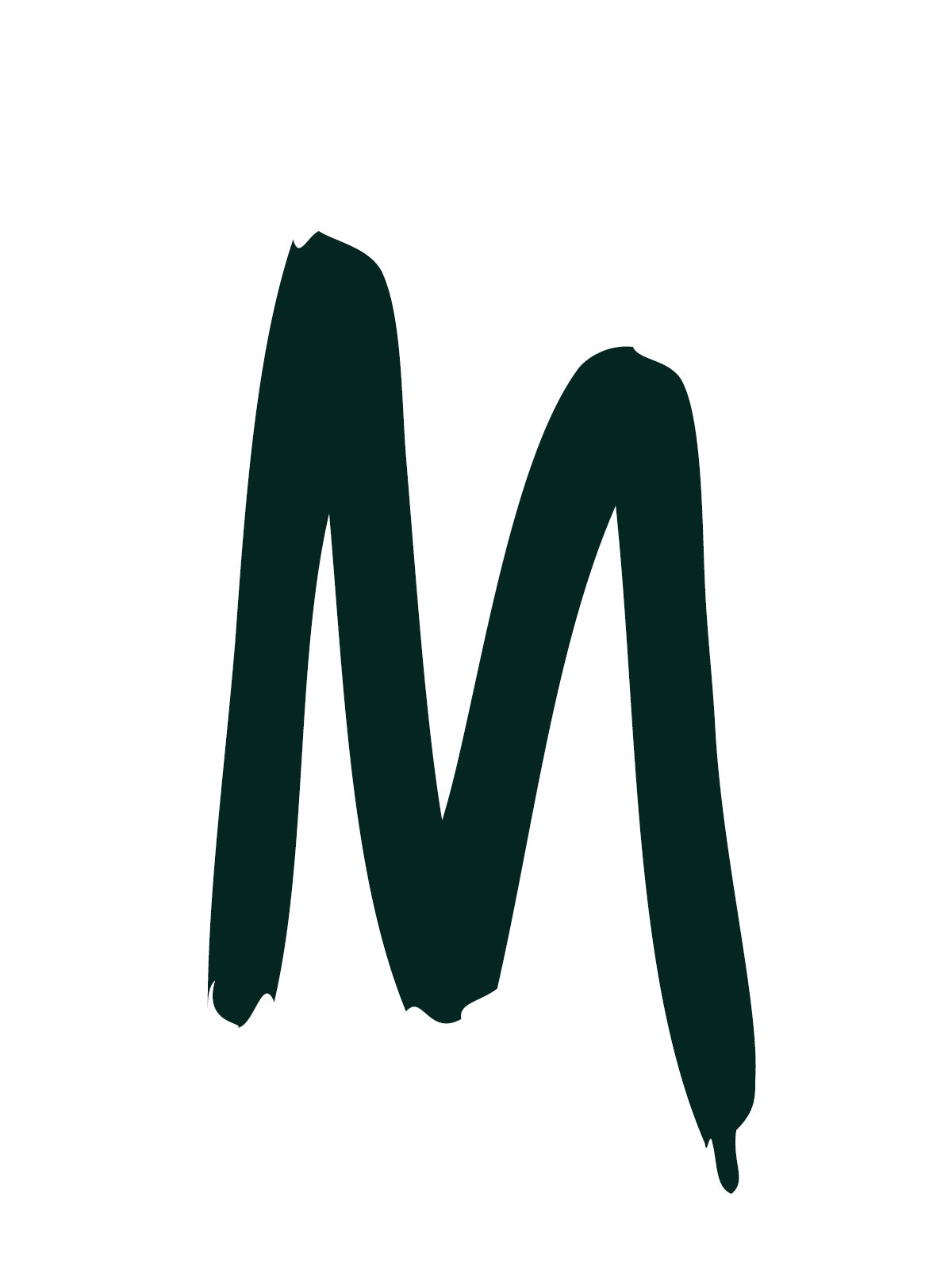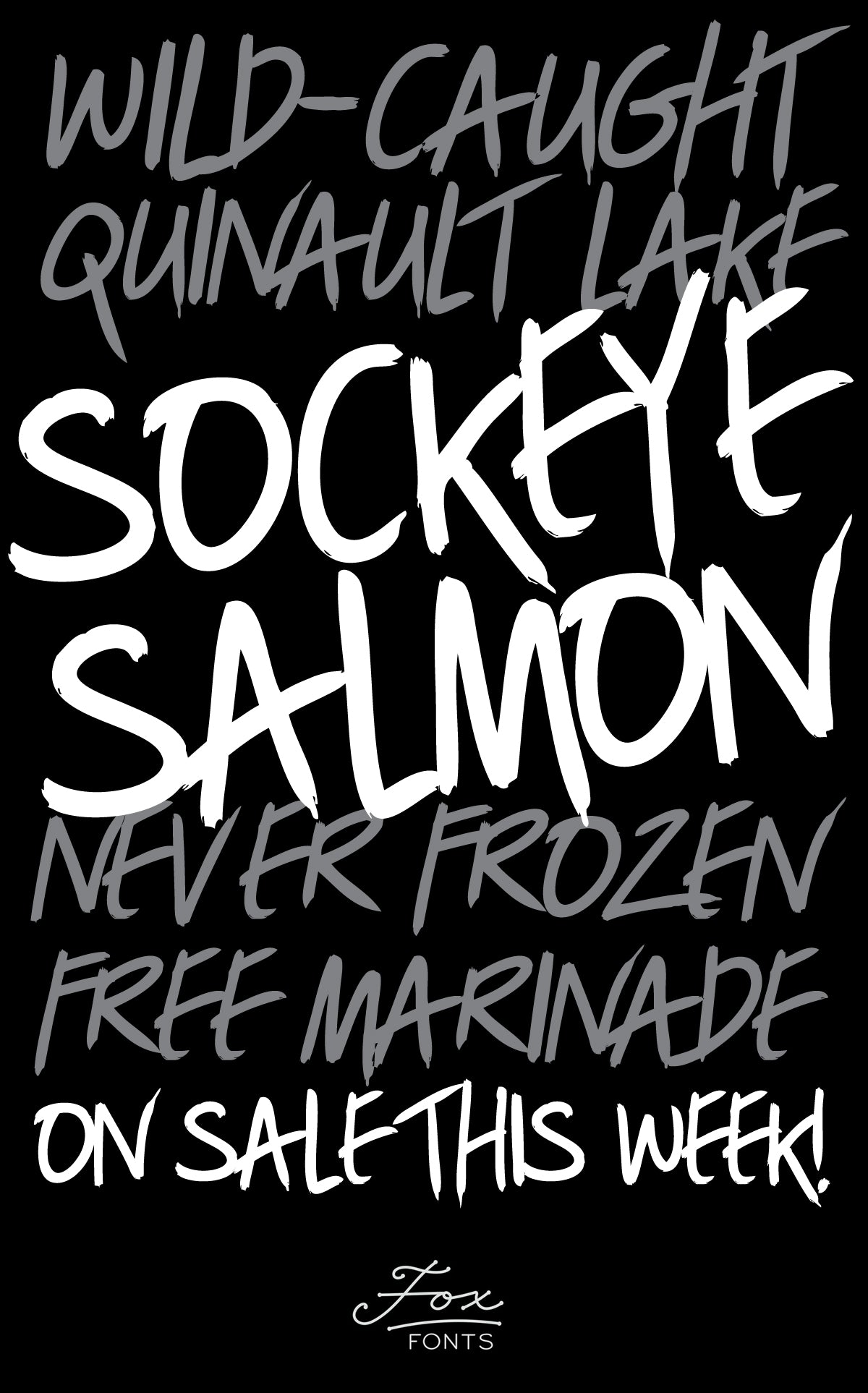
Stylene Family
A bit manic, a bit messy, the Stylene family is a little offbeat--the hurried work of a grocery signpainter, the frenzied scrawl of an eccentric's brainstorm, or the voice of a secret journal's disturbing confessions. Brushed and sometimes drippy characters jaunt along the baseline with the varied slant of quick handwriting. The Shaken face exaggerates and randomizes slant and bounce. Tight kerning, intentional variance, and realistic strokes make Stylene best-suited to titles and short copy. For a custom-lettering look, combine the faces across text.
Designed by April Carter Grant